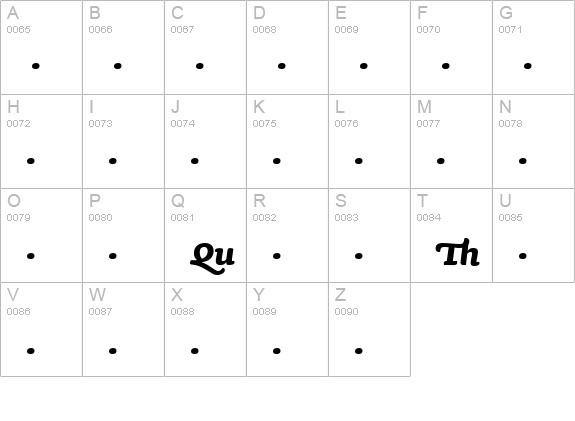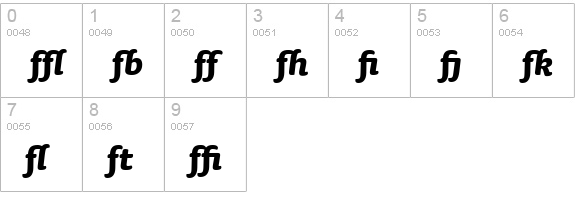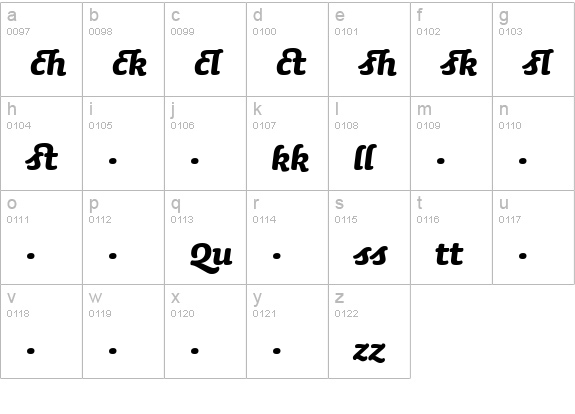
SaunaLigatures-BoldItalicSwash Font Details
SaunaLigatures-BoldItalicSwash is a beautifully designed font that exudes elegance and sophistication. This font is perfect for adding a touch of luxury to any project, whether it's a logo, invitation, or website design. The bold and italic style of SaunaLigatures-BoldItalicSwash adds a sense of modernity and flair, making it stand out from the crowd. What sets SaunaLigatures-BoldItalicSwash apart is its unique swash characters. These decorative flourishes add a sense of whimsy and charm, elevating your designs to new heights. Whether you want to emphasize a word or add a decorative touch to your typography, SaunaLigatures-BoldItalicSwash has got you covered. But what makes SaunaLigatures-BoldItalicSwash truly special is that it is free. That's right, you can download this stunning font for free at FontsMarket.com. This means that you can bring a touch of luxury and style to your designs without breaking the bank. So why wait? Download SaunaLigatures-BoldItalicSwash today and let your creativity soar.